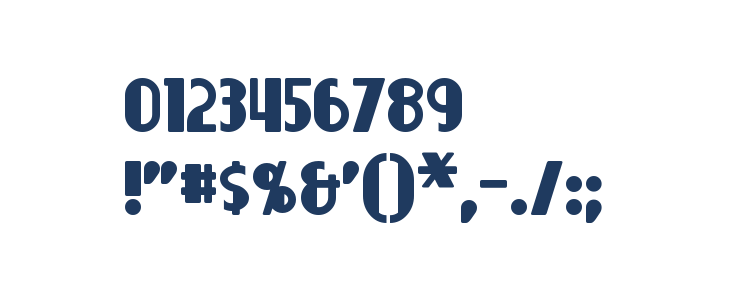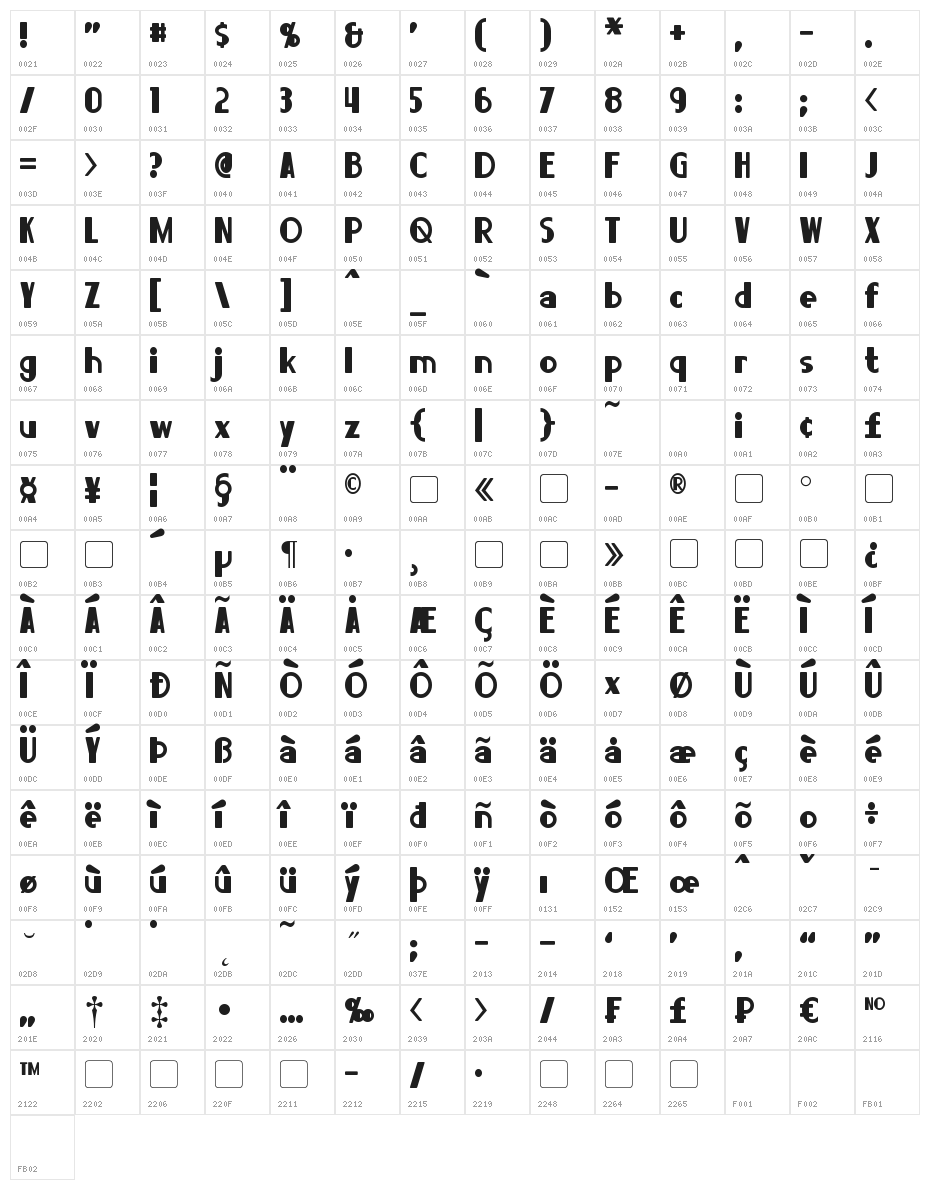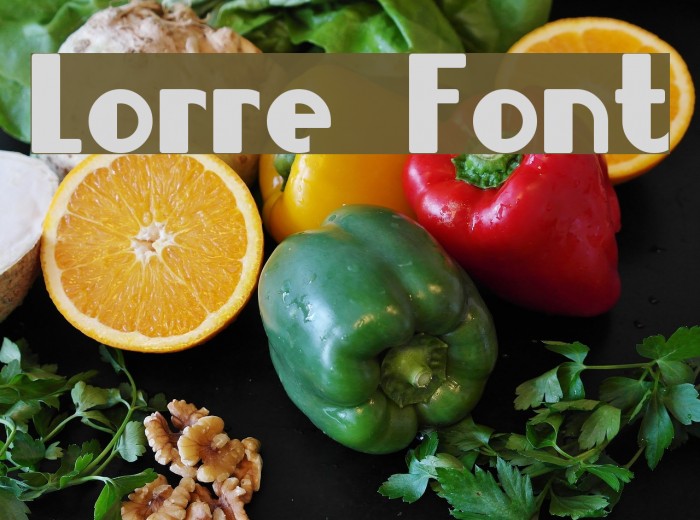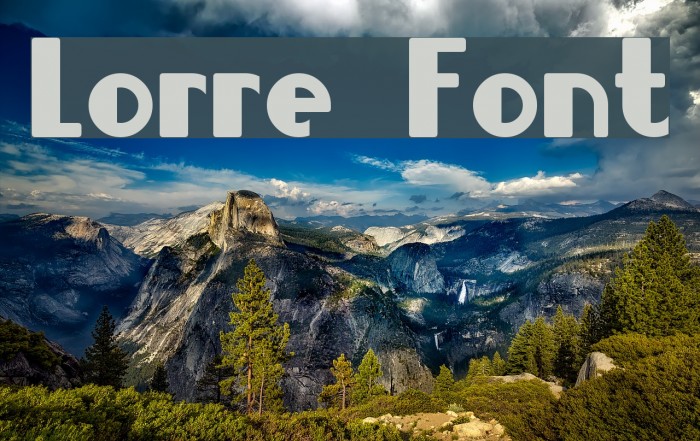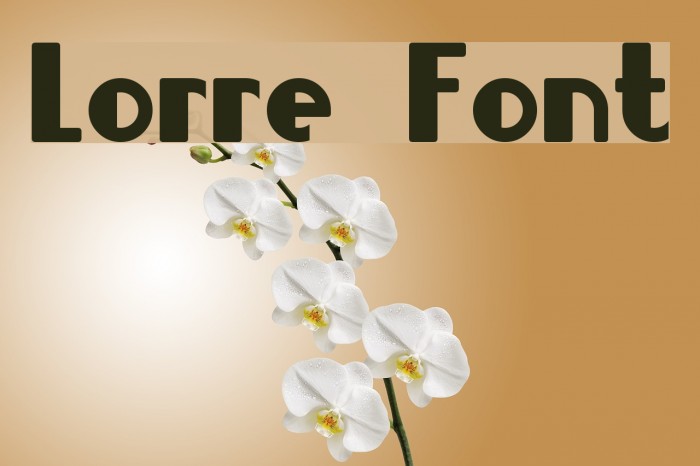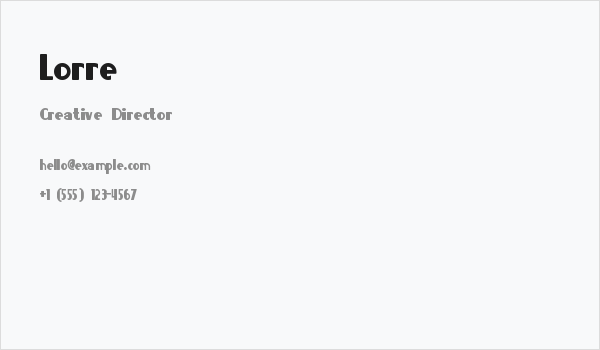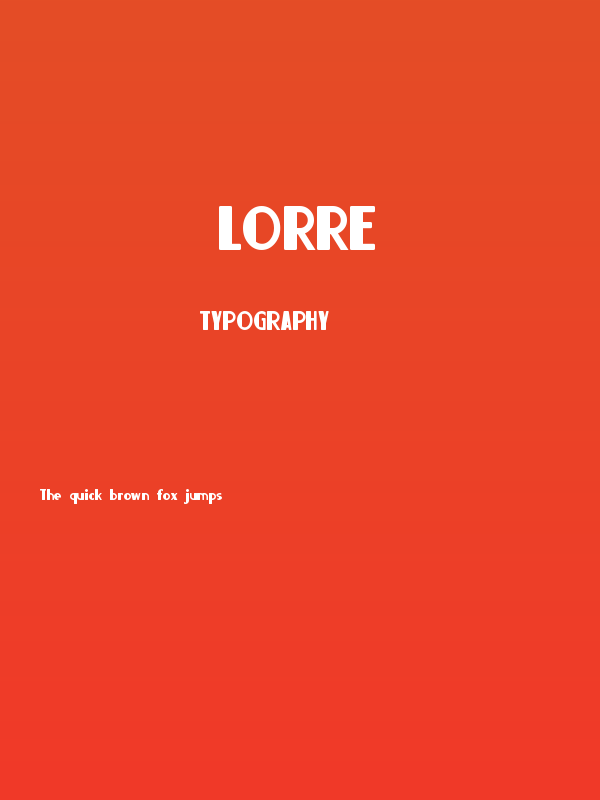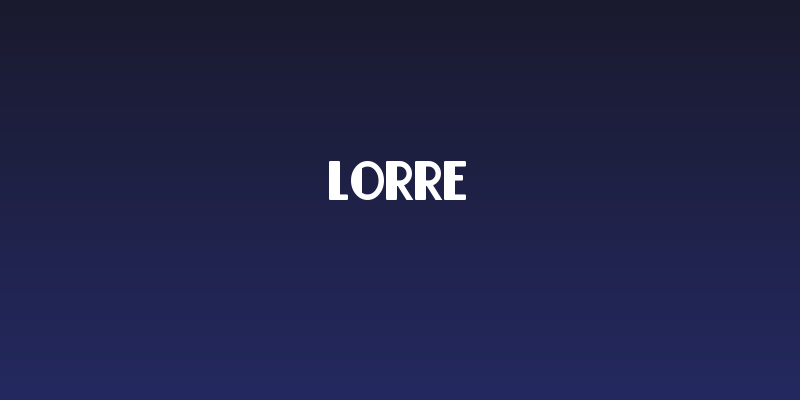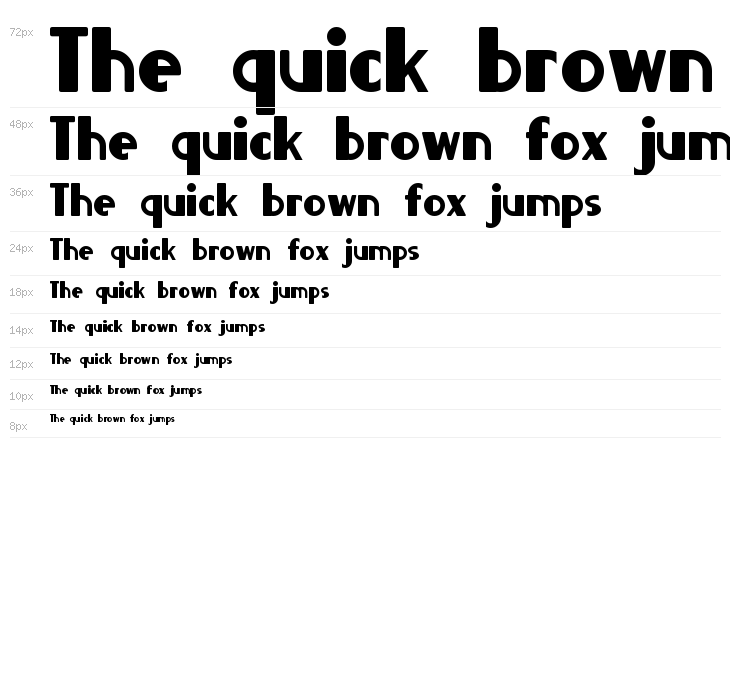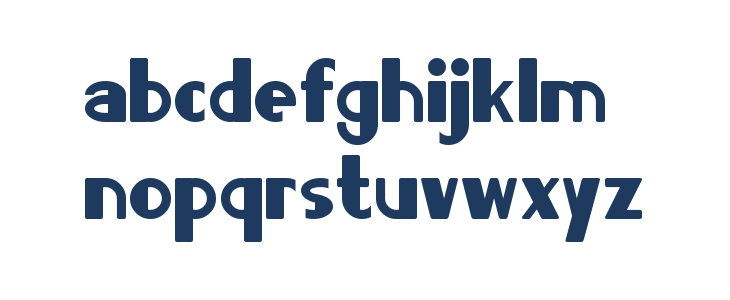
Lorre Font
Lorre Description
This font features bold, rounded characters with a strong presence, making it ideal for attention-grabbing designs. The uppercase letters are robust and slightly condensed, while the lowercase letters maintain a consistent weight, offering a harmonious balance. The numerals are clear and easy to read, with a uniform thickness that complements the overall style. Special characters are designed with the same boldness, ensuring they stand out in any context. The font's design is modern and versatile, suitable for a variety of applications where a strong visual impact is desired.
Proposed ProjectsIdeal for branding, poster design, headlines, and advertising materials.